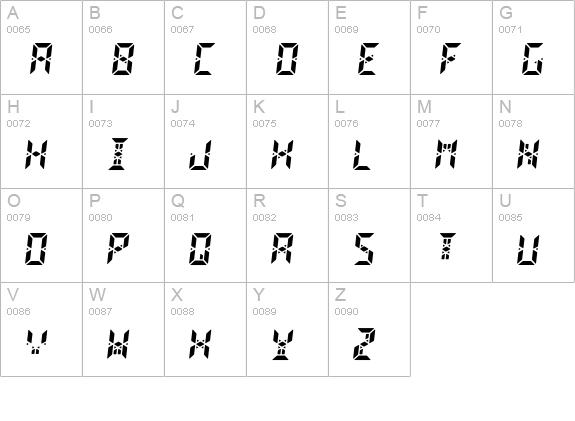
Digital2 Font Details
Introducing Digital2 font, a sleek and modern typeface perfect for adding a contemporary touch to your design projects. With its clean lines and geometric shapes, Digital2 is the ideal choice for digital-themed designs, tech-related projects, and futuristic branding. This versatile font exudes a sense of innovation and sophistication, making it a must-have for designers looking to make a bold statement. What's even better is that Digital2 font is completely free to download at FontsMarket.com. Yes, you heard that right - this high-quality font is available for you to use in your personal and commercial projects without any cost. So go ahead and elevate your designs with Digital2 font today!